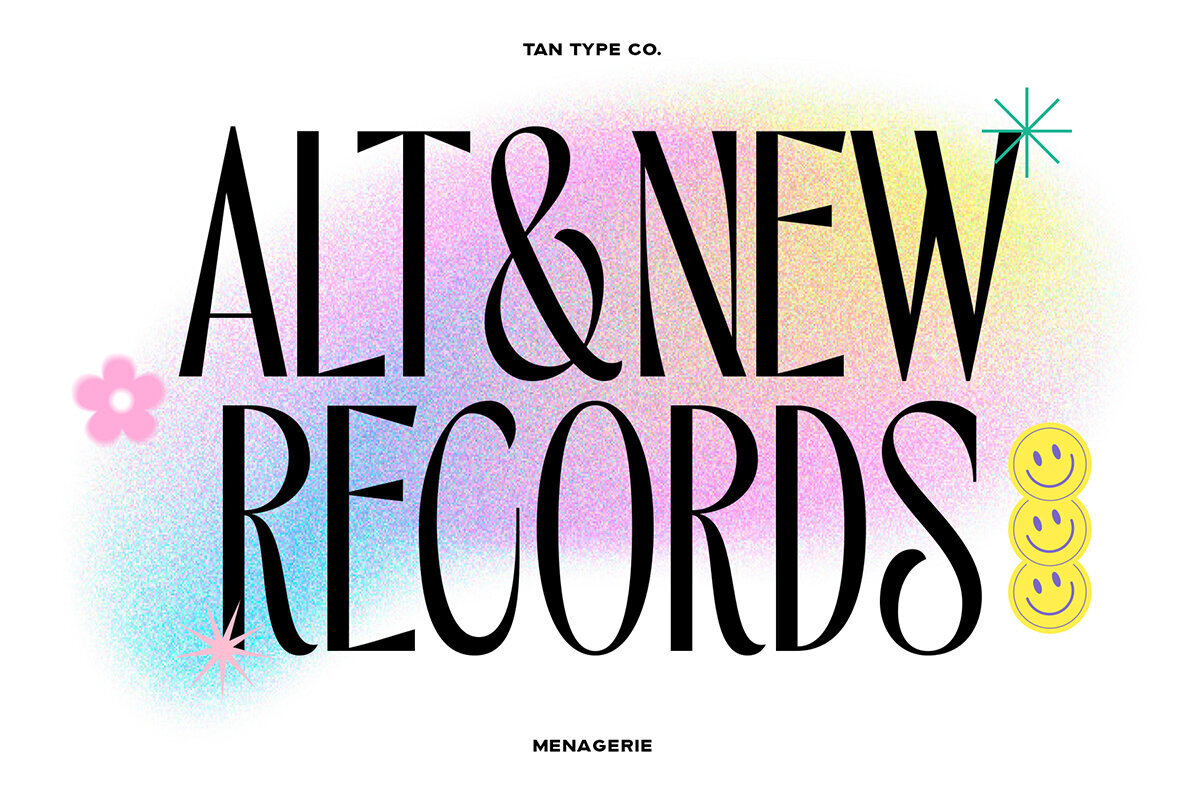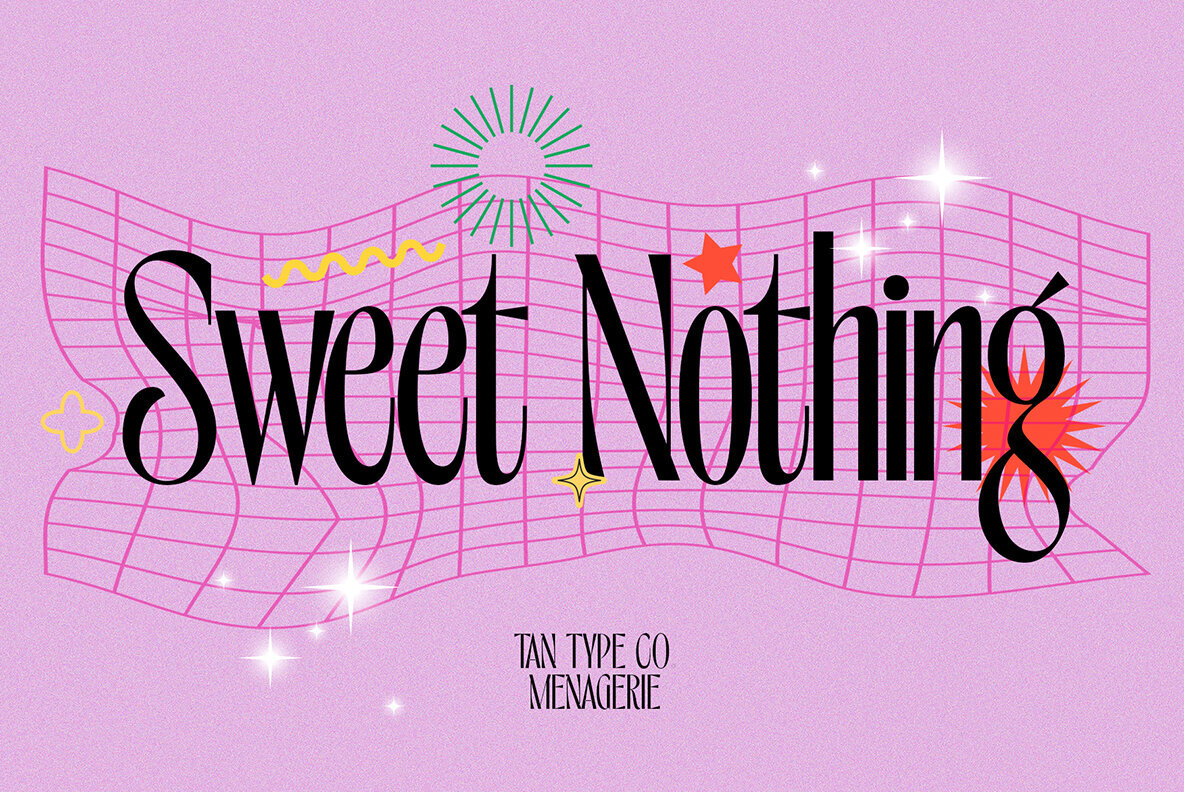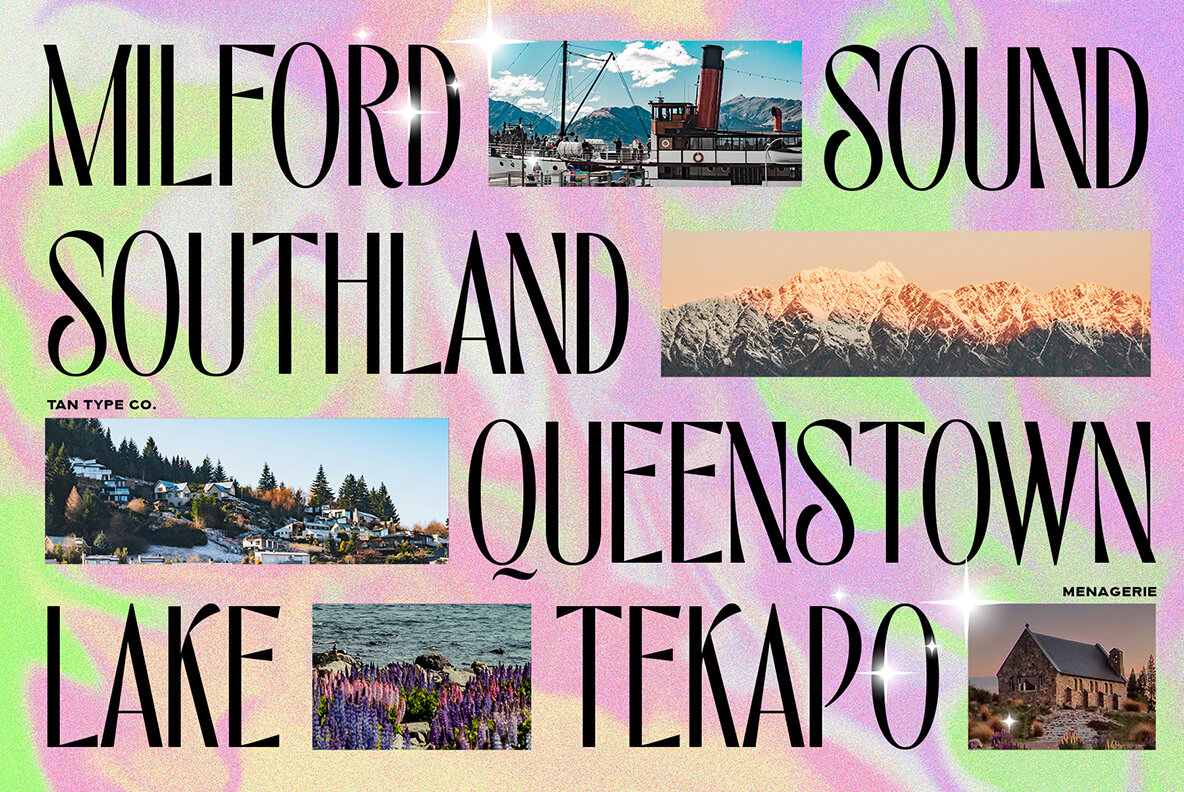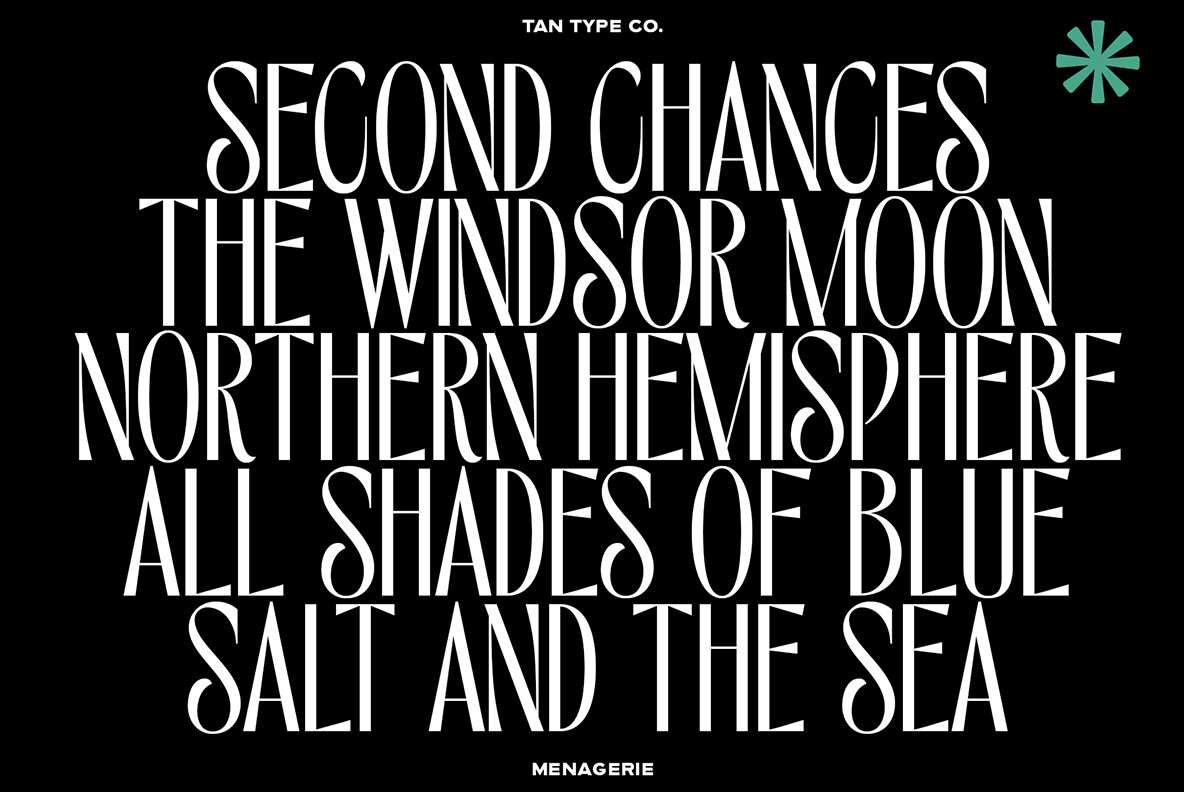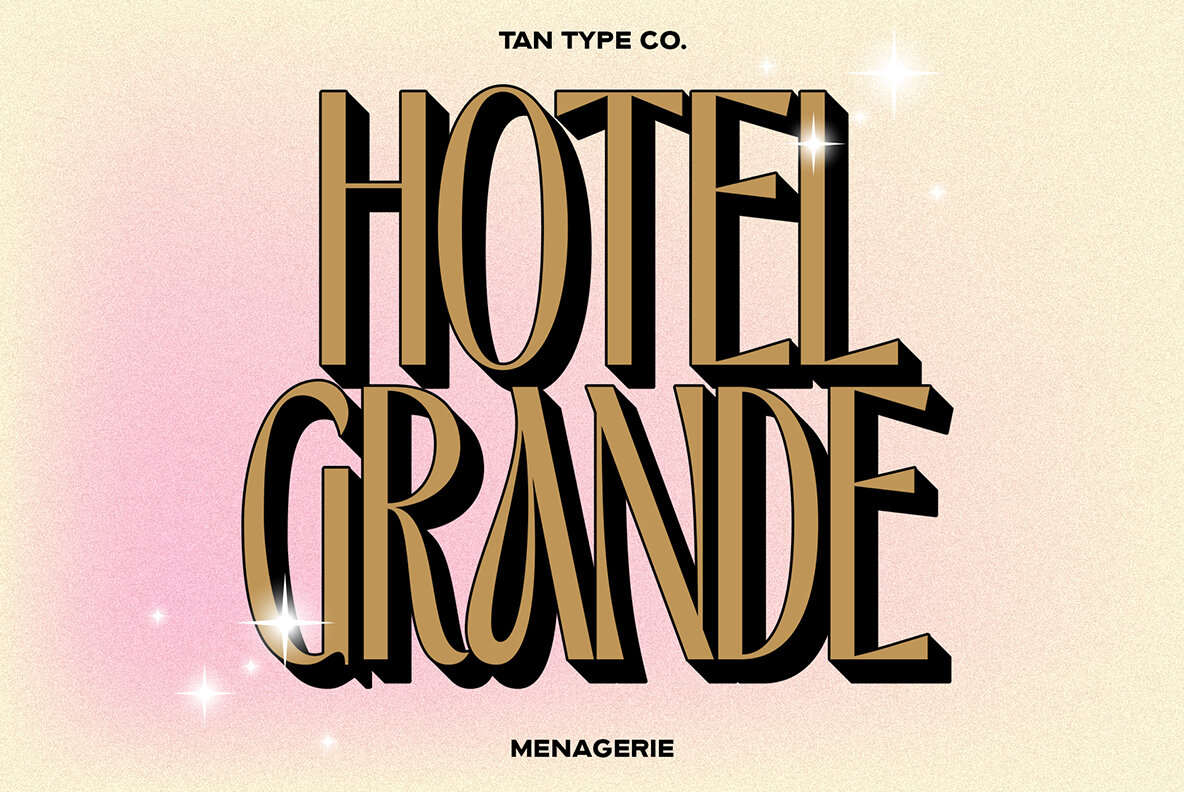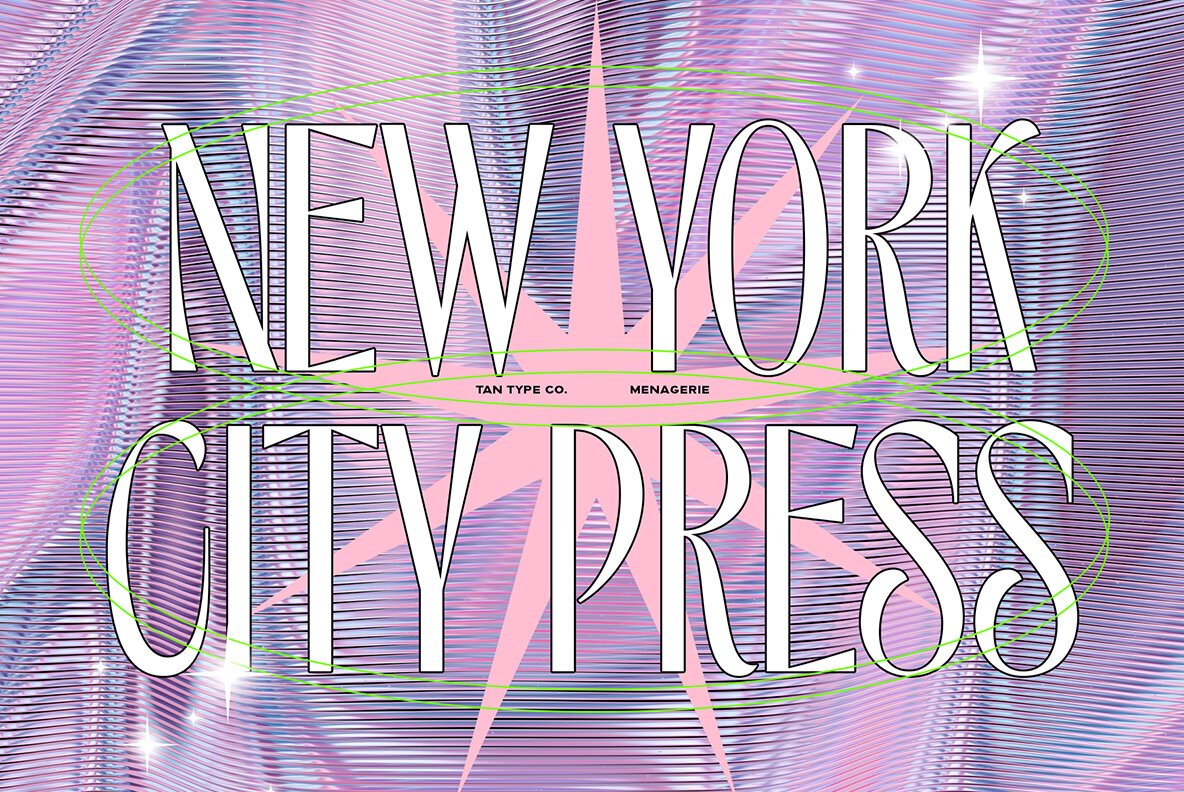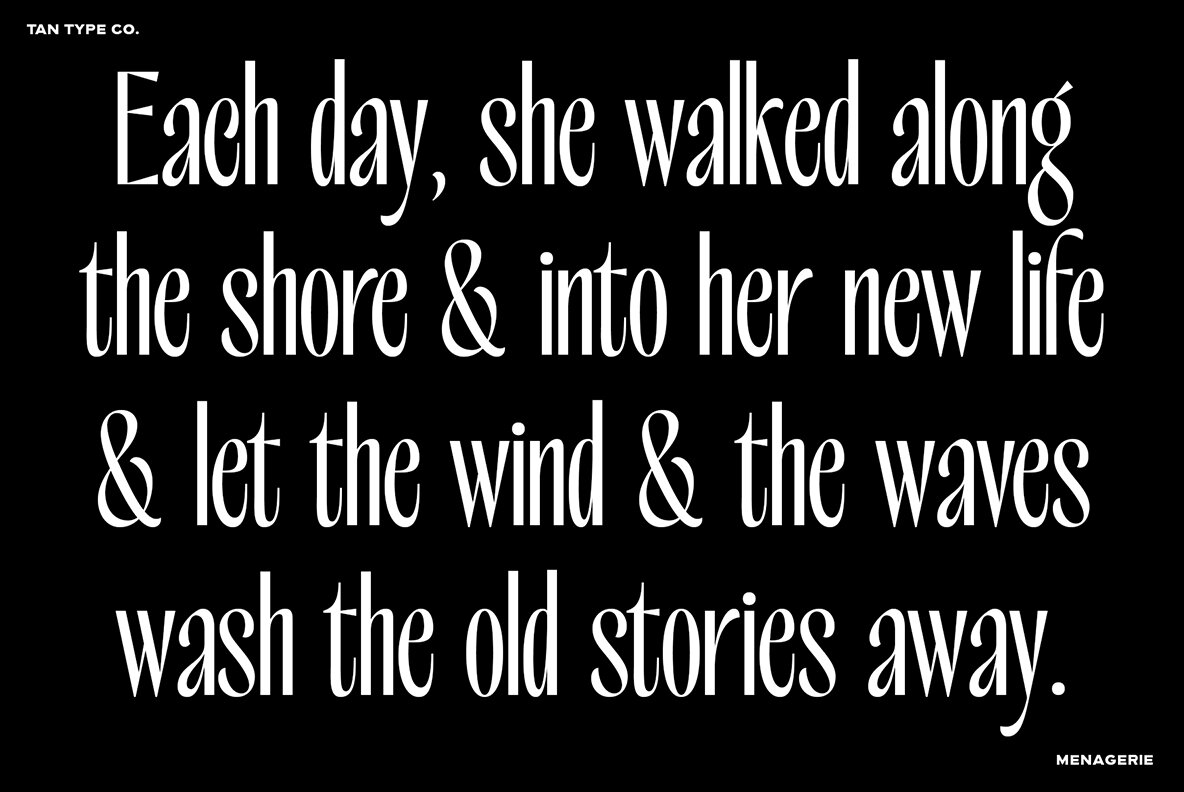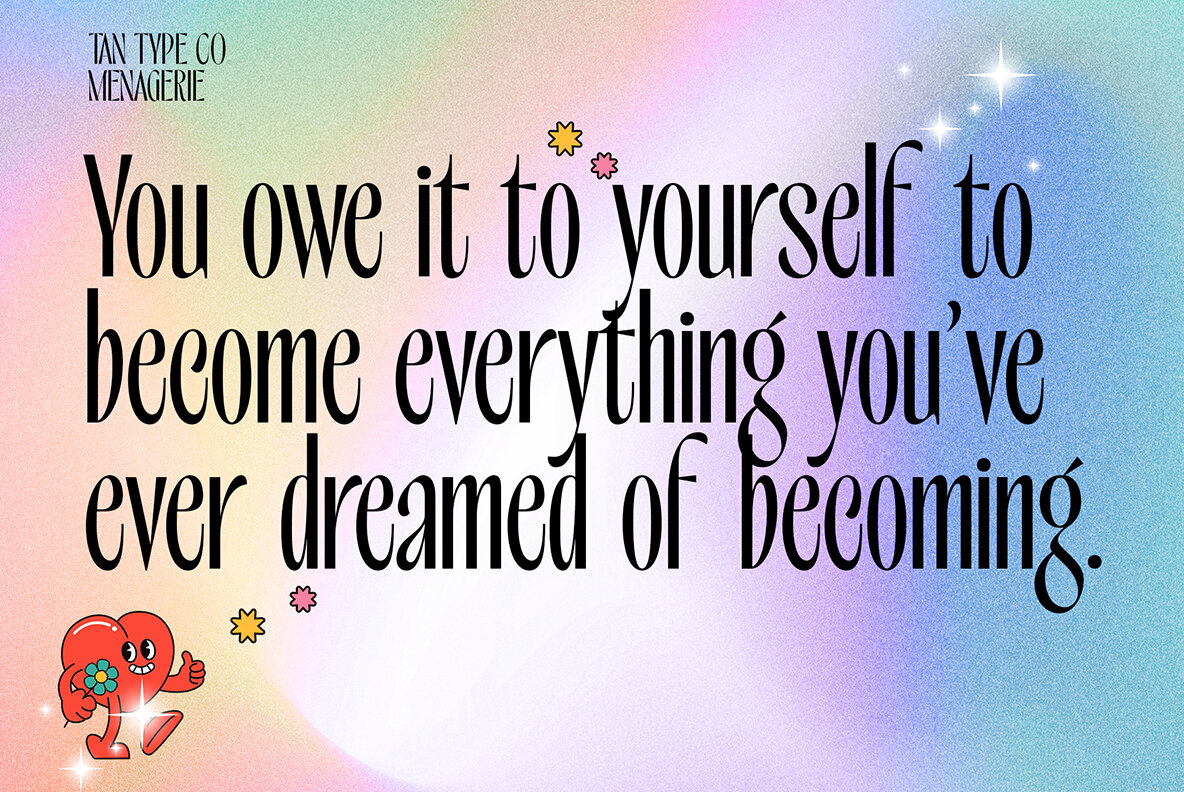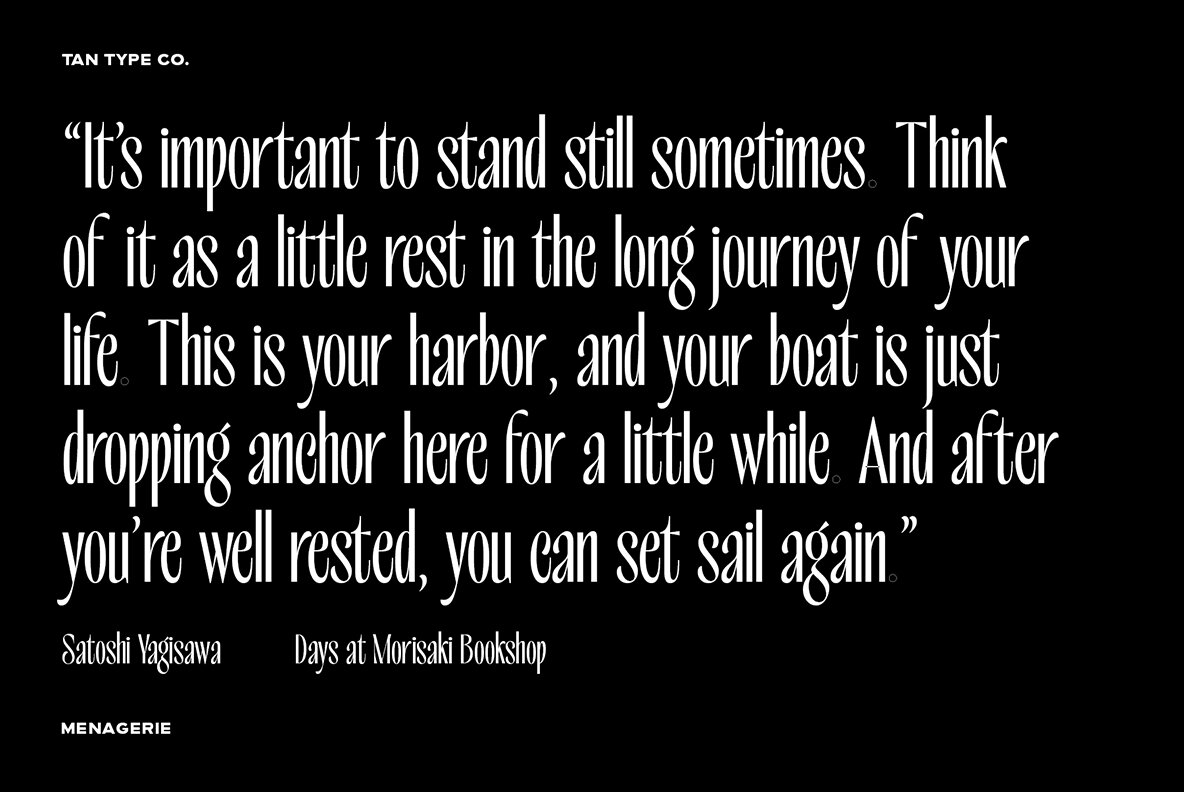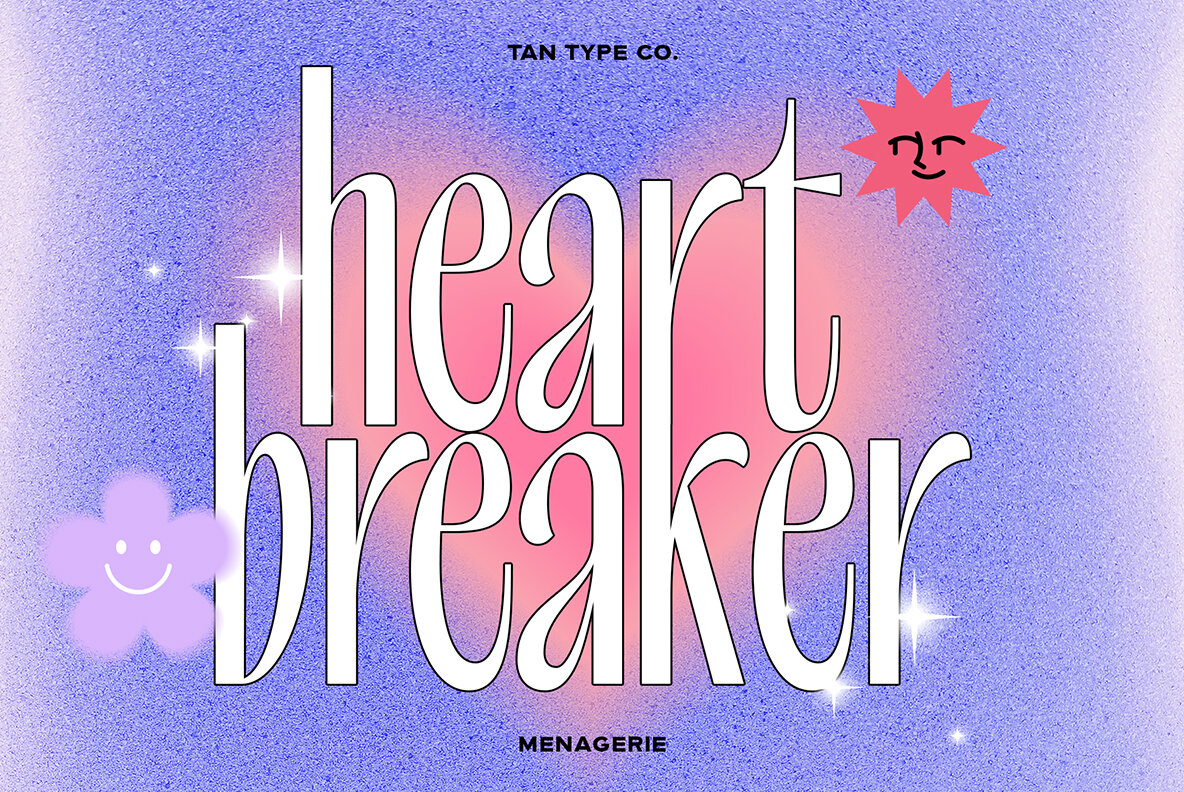
TAN MENAGERIE Font
TAN MENAGERIE Regular
Infuse your designs with a playful twist using TAN Mischief, a typeface that combines the familiarity of classic forms with unexpected details. Balancing style and whimsy, it offers a fresh perspective without sacrificing elegance. This font is ideal for projects that require a touch of sophistication while maintaining an approachable, fun demeanor.TAN MENAGERIE: A Playful Spin on Classic Typography
Characteristics